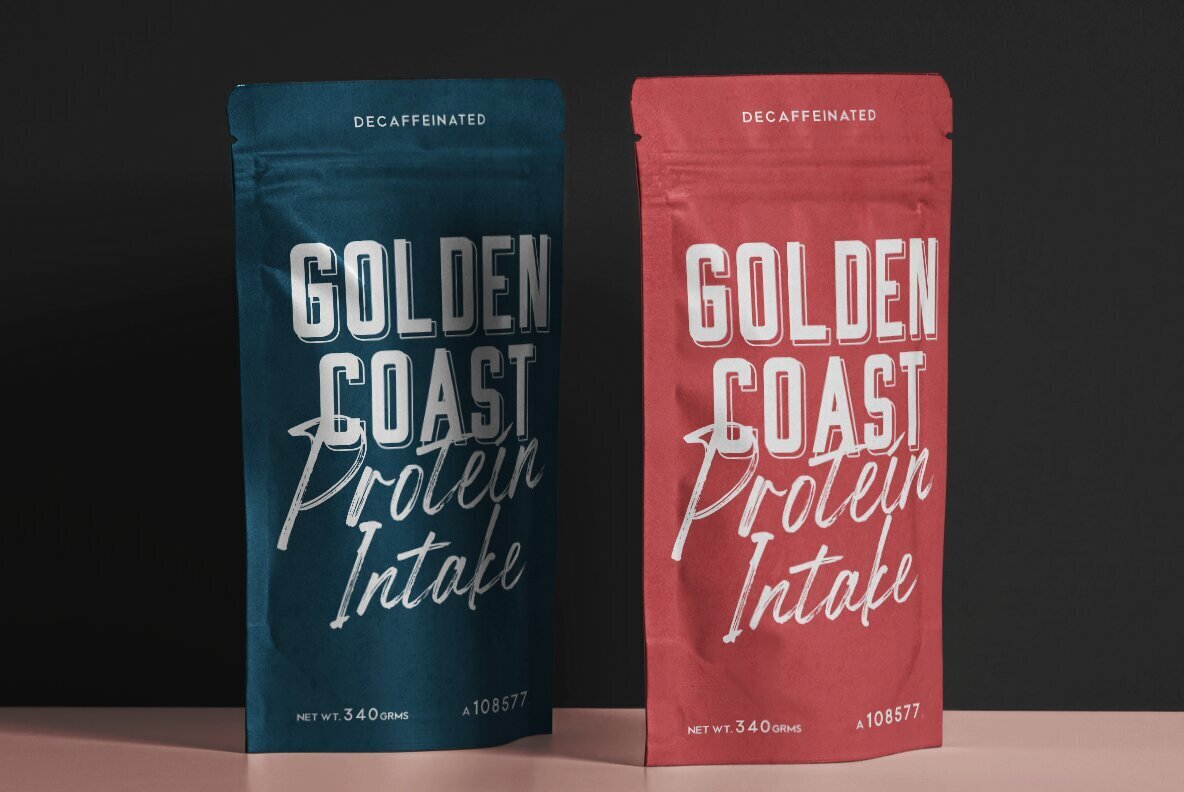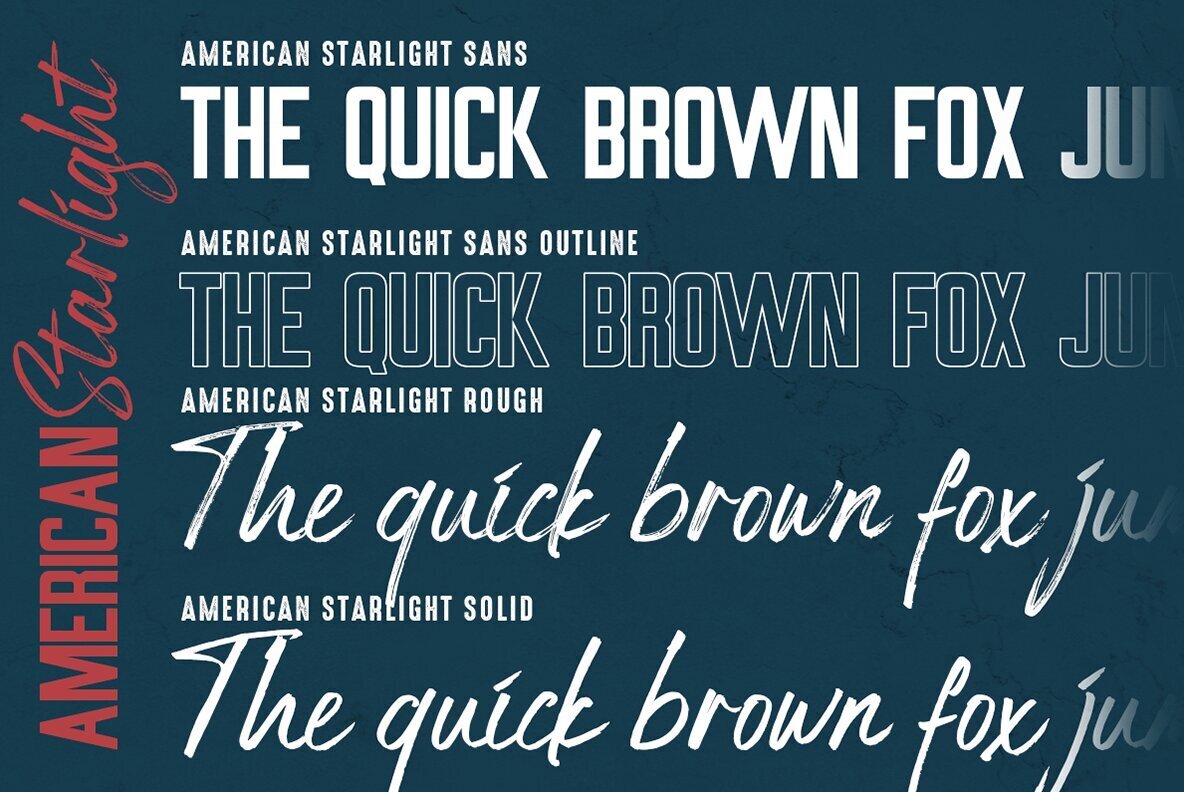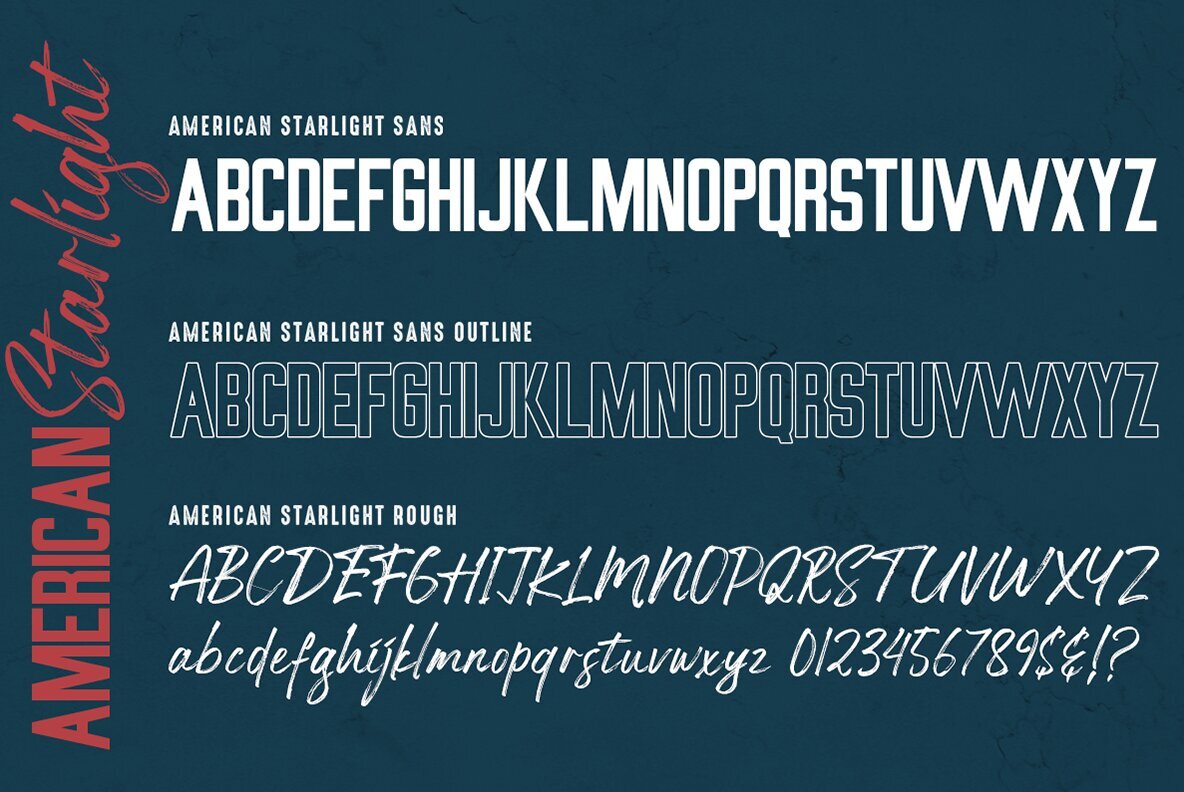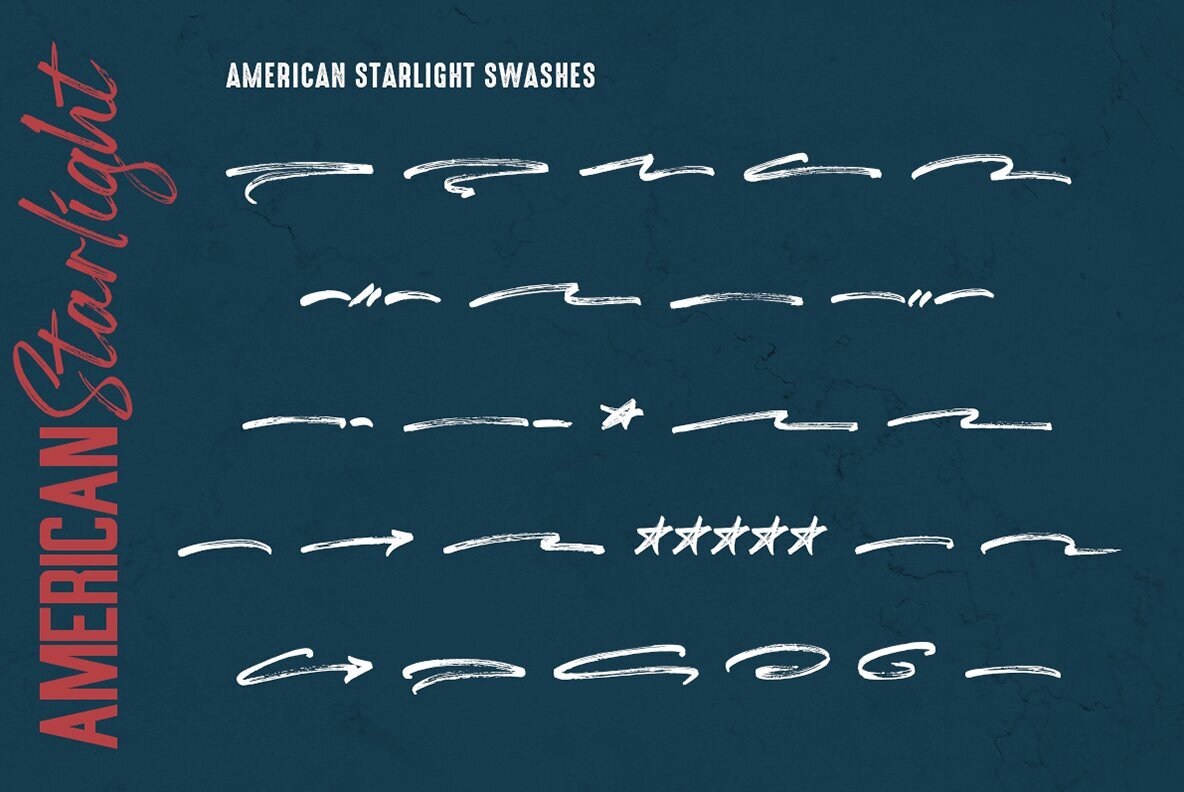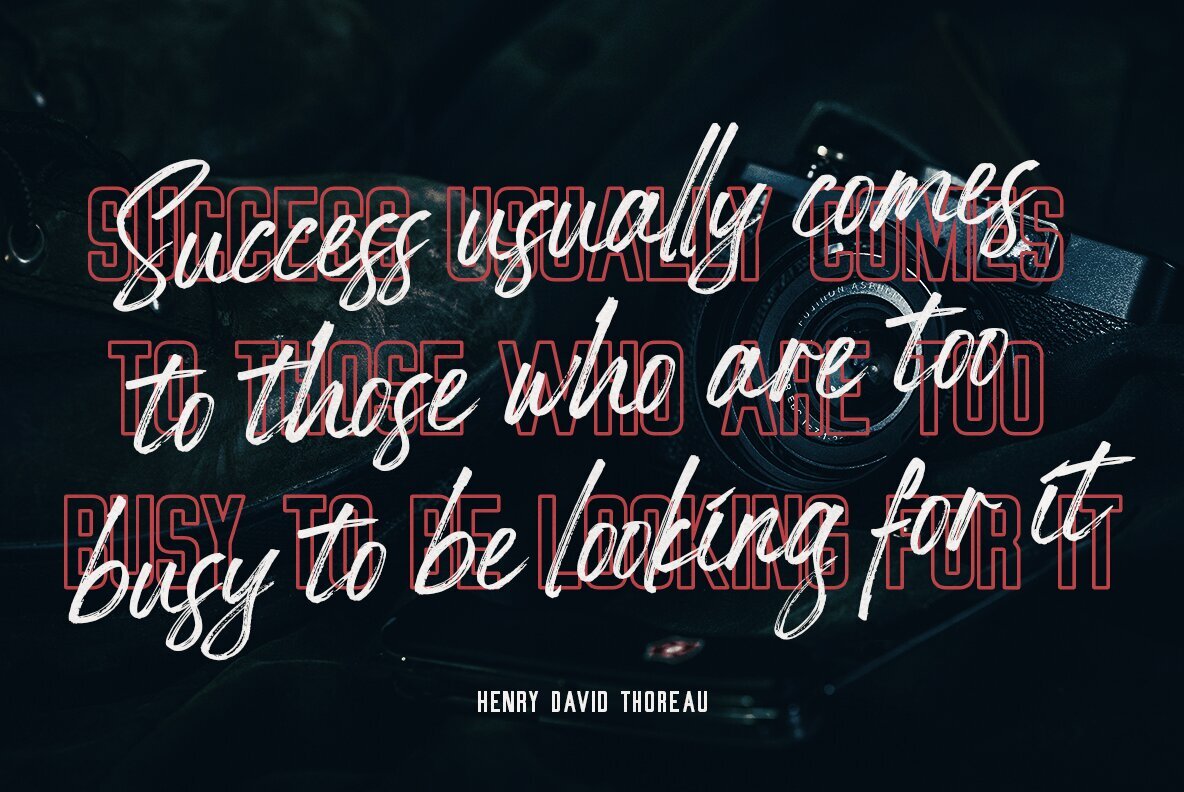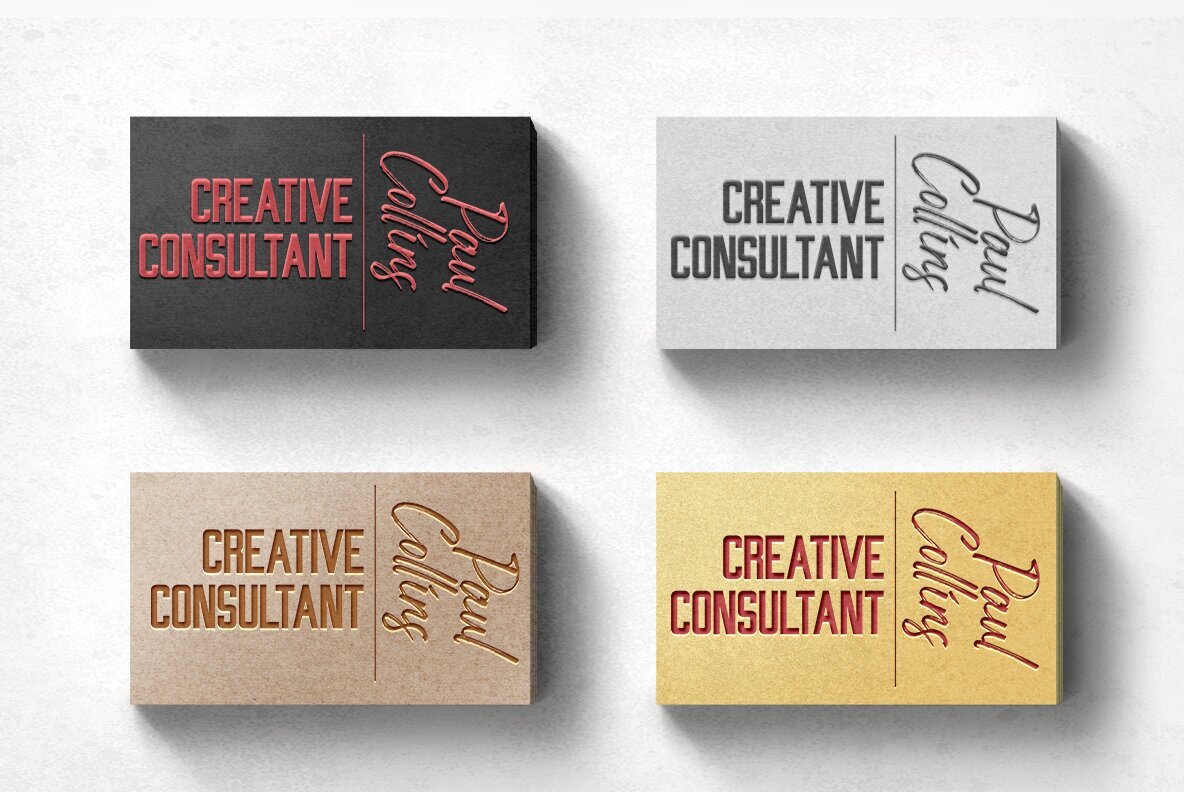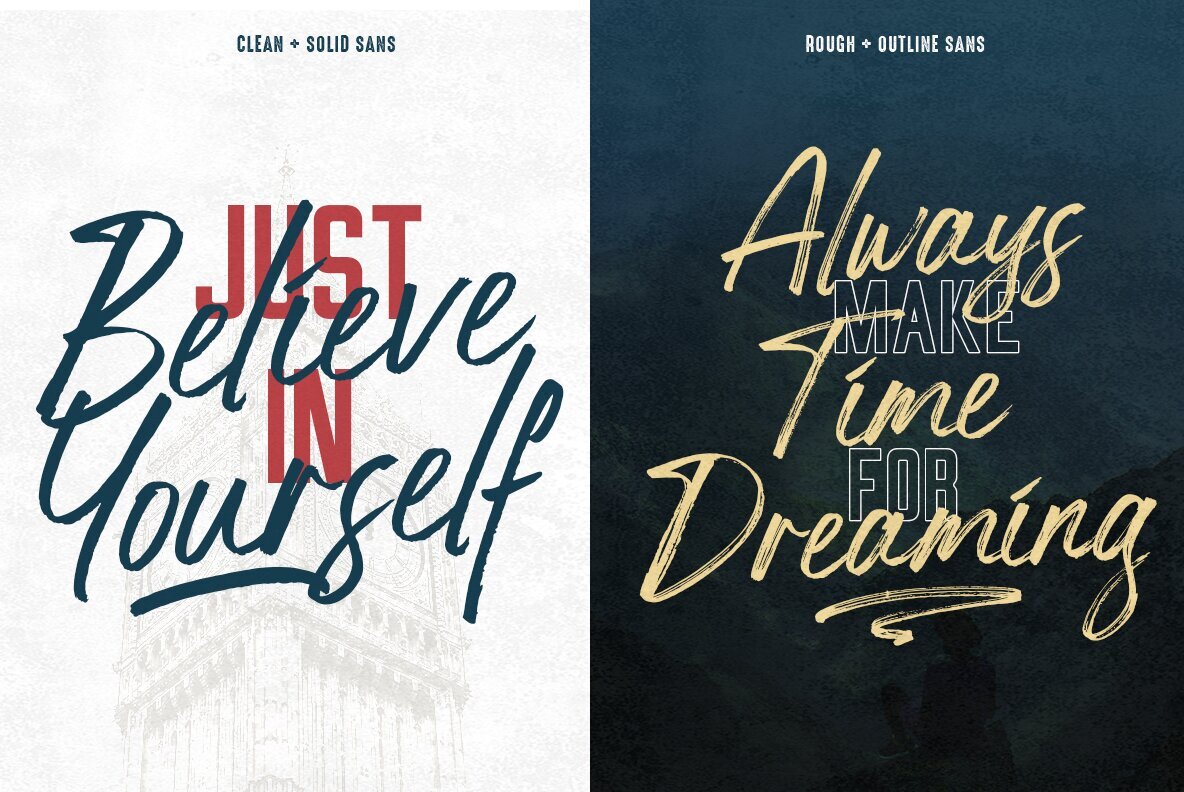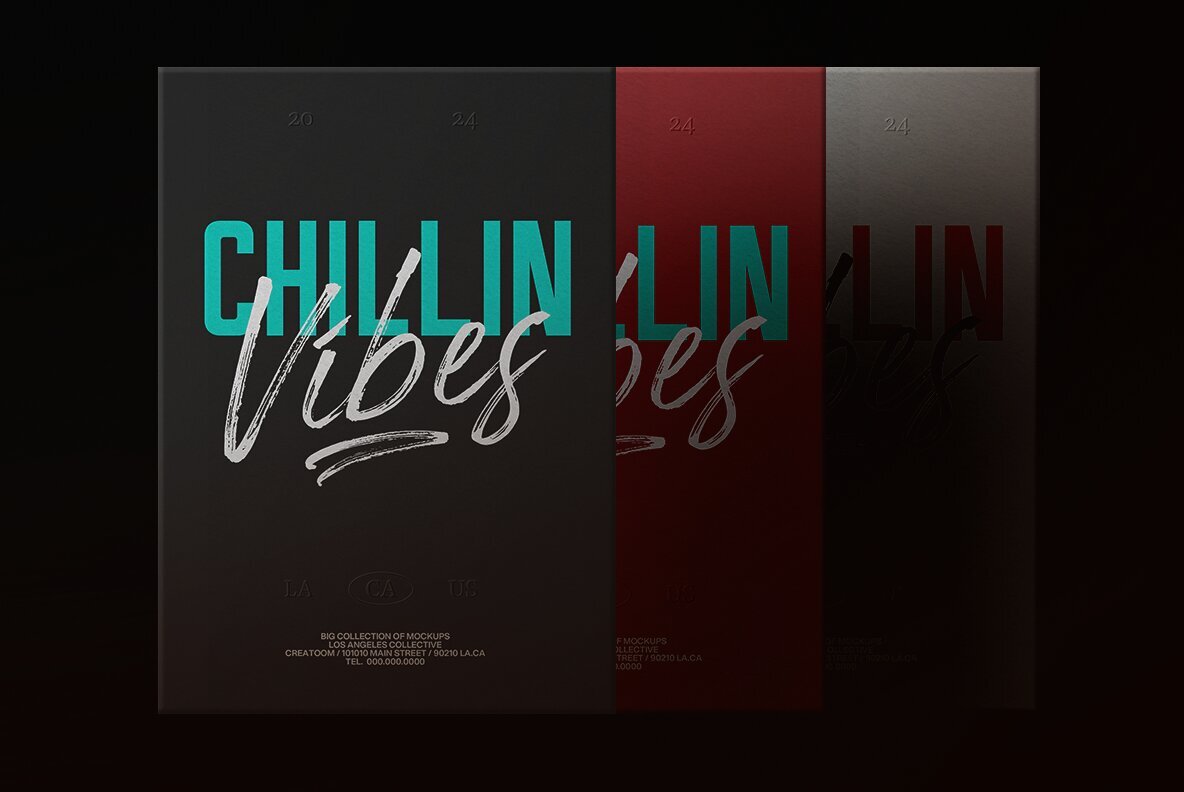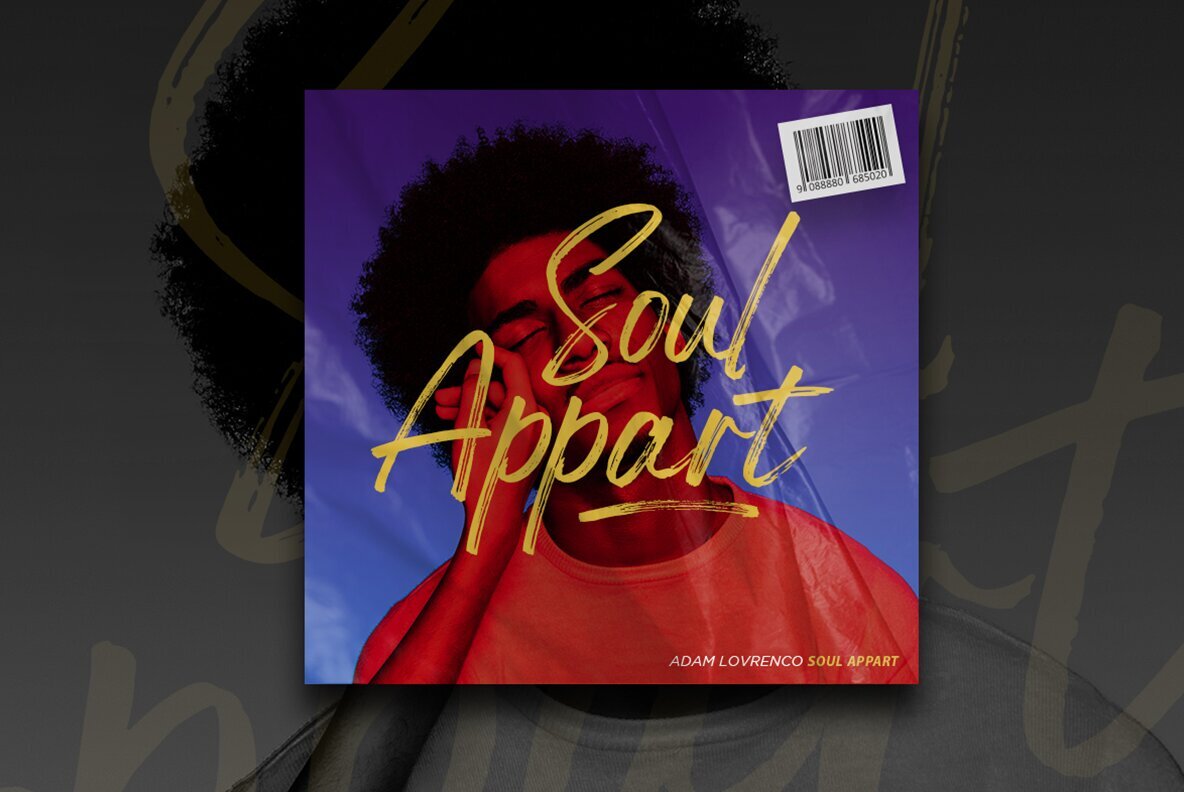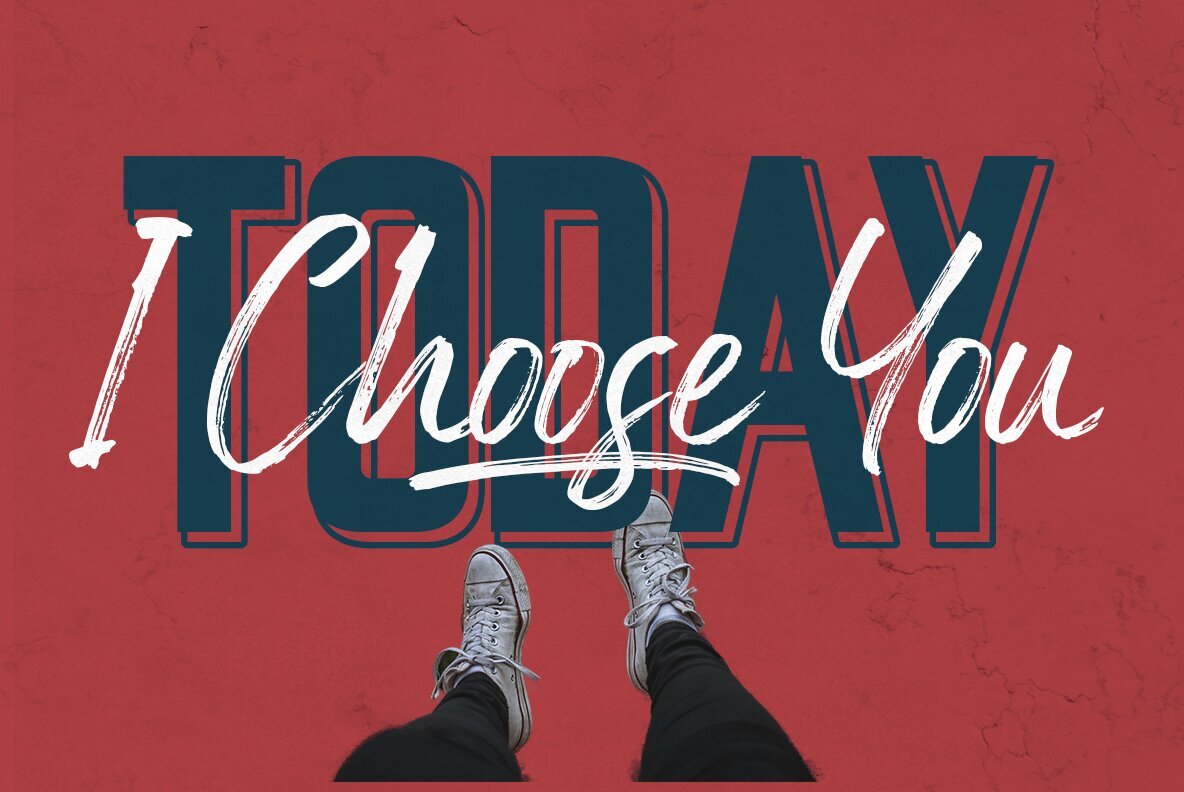
American Starlight Font
American Starlight is a retro-looking sans serif font combined with a beautiful handwritten script font. With its beautiful combination, American Starlight will be perfect for logo designs, book titles, movie posters, social media posts, and more. American Starlight is a bold sans serif combined with a stunning script font that comes in 4 styles and has 26 swashes that will enhance your designs. It is made with great care and introduces it with a great presentation.